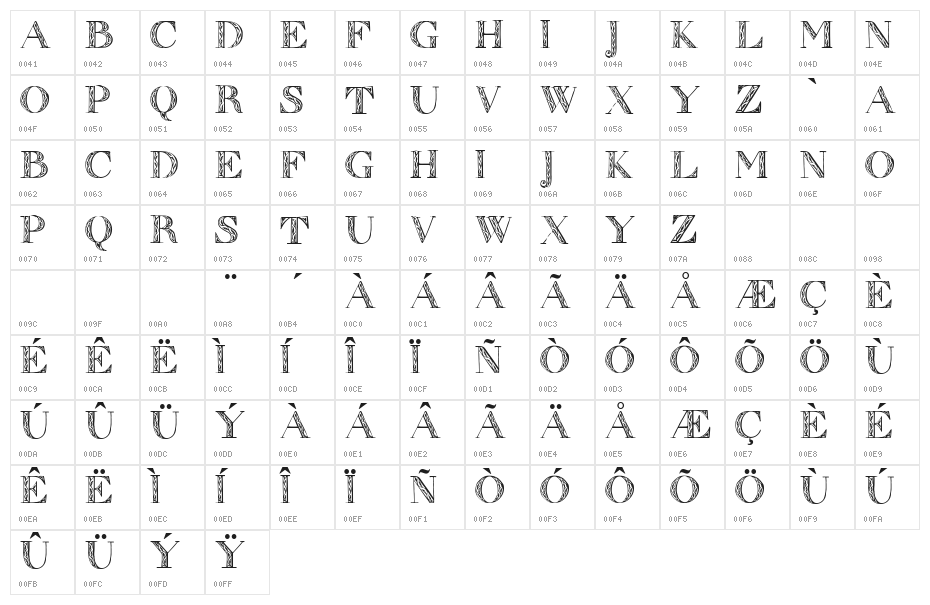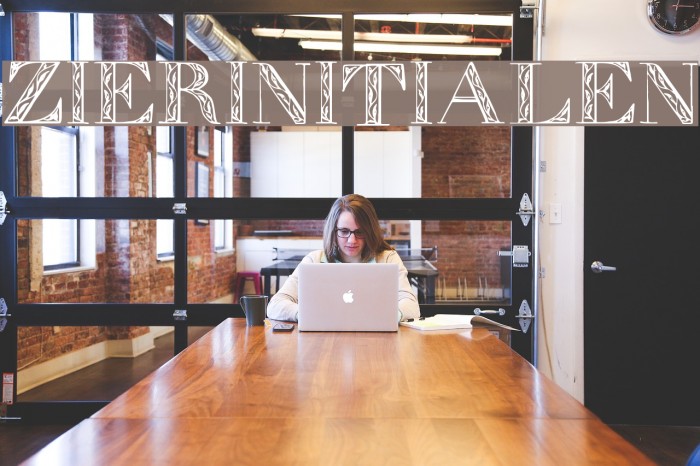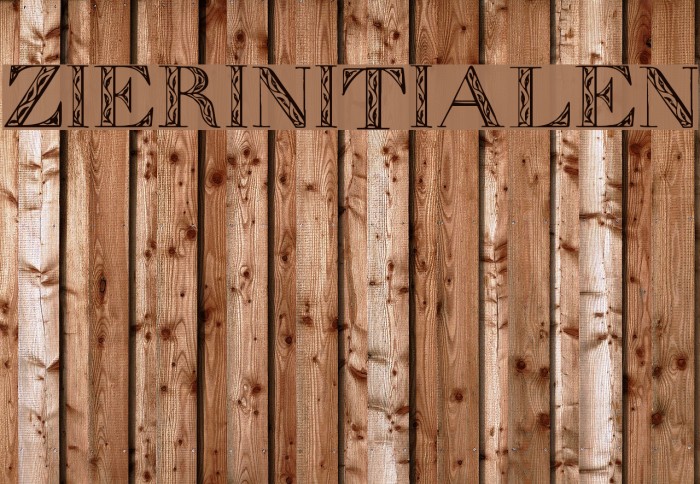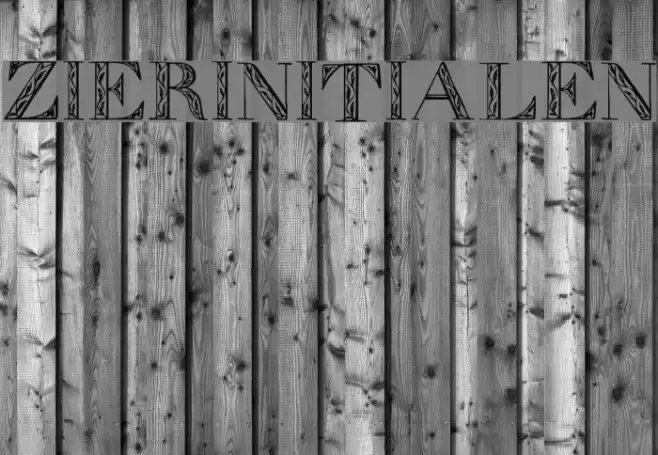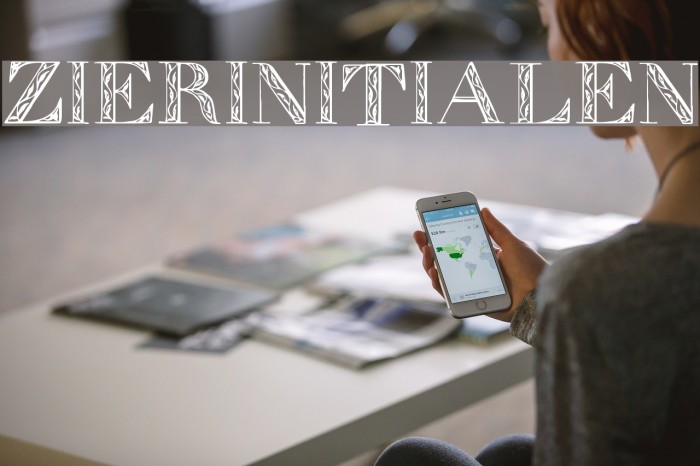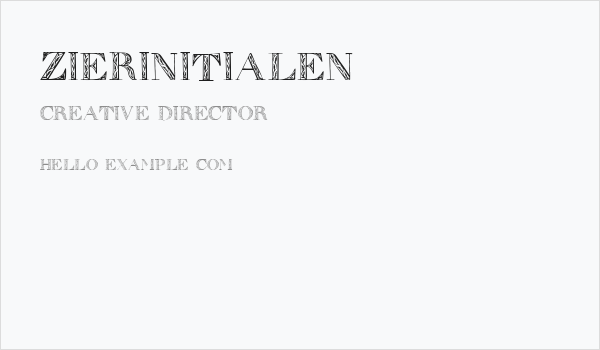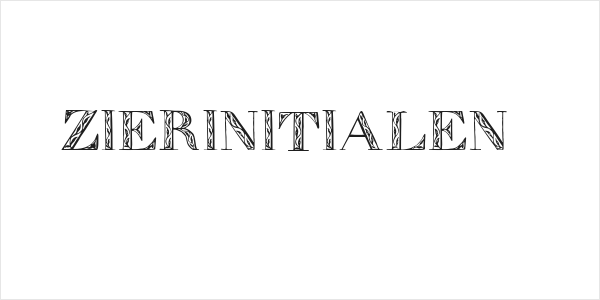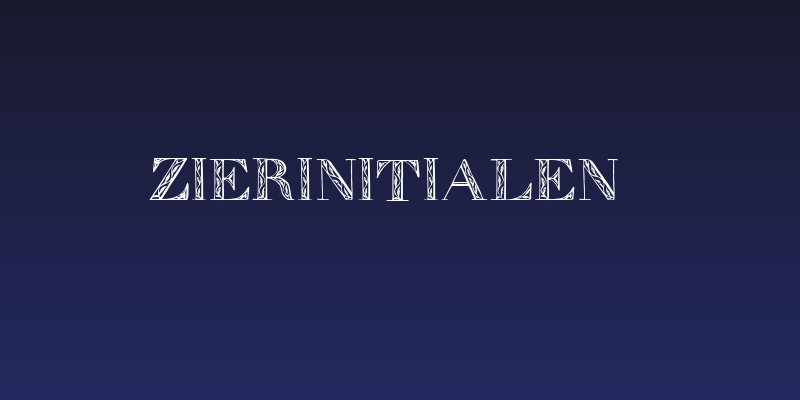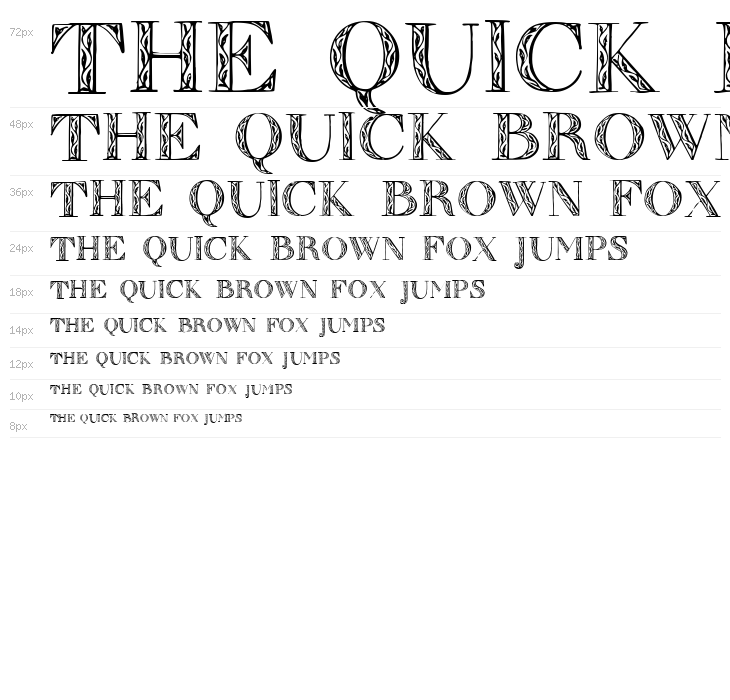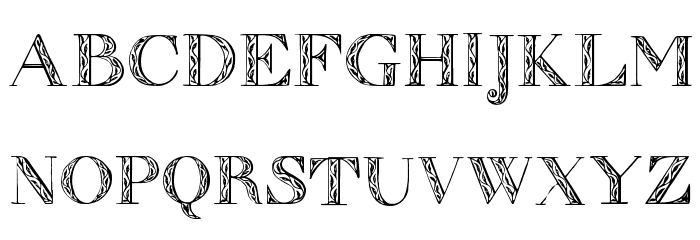
Zierinitialen1 Font
Zierinitialen1 Description
This font features an ornate and decorative style, characterized by intricate patterns and embellishments within each letter. The uppercase letters are bold and prominent, with elaborate detailing that gives them a vintage and artistic appearance. The design includes swirling lines and floral motifs that create a sense of elegance and sophistication. This font is ideal for projects that require a touch of classic beauty and artistic flair, making it suitable for invitations, posters, and branding that seeks to convey a sense of luxury and tradition.
| Proposed Projects | Ideal for wedding invitations, luxury branding, vintage-themed posters, and artistic projects. |